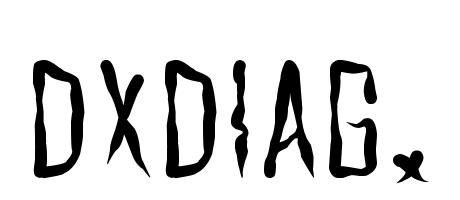
Dxdiag
By Bastian Ahad
DXDIAG. is a bold, slightly distressed typeface. Its letters are thick and have a rugged, almost hand-carved quality. The serifs are blunt and irregular, giving it a raw, unrefined aesthetic. The overall feel is strong and slightly aggressive, hinting at a technical or diagnostic context. The small asterisk adds a playful, yet slightly imperfect touch.